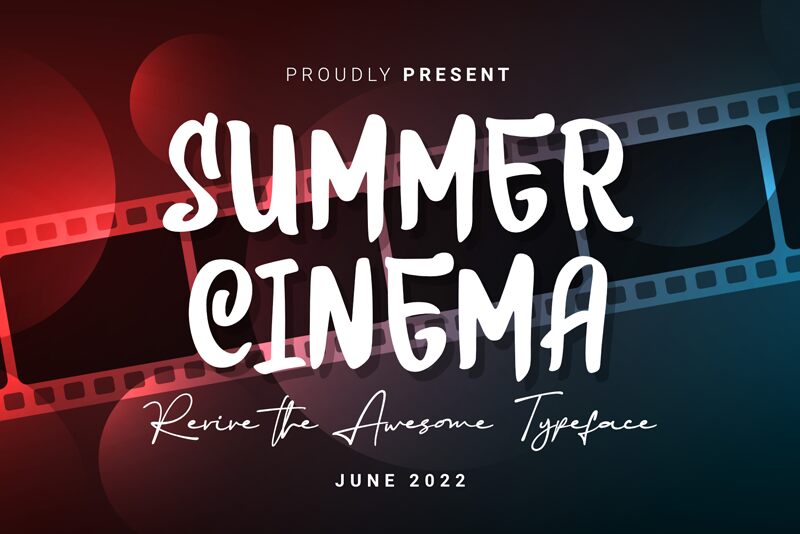
Summer Cinema
Summer Cinema, a mesmerizing creation by DumadiStyle, is an exquisite handwritten font that exudes a sense of whimsy and nostalgia. Its semi-bold weight adds depth and character to any design.
With its charming imperfections and playful curves, this font is perfect for crafting movie posters that capture the essence of classic films or designing eye-catching invitations for outdoor summer events. Whether you're working on a vintage-inspired logo or a captivating social media graphic, Summer Cinema will transport your audience to a world of enchantment and joy.